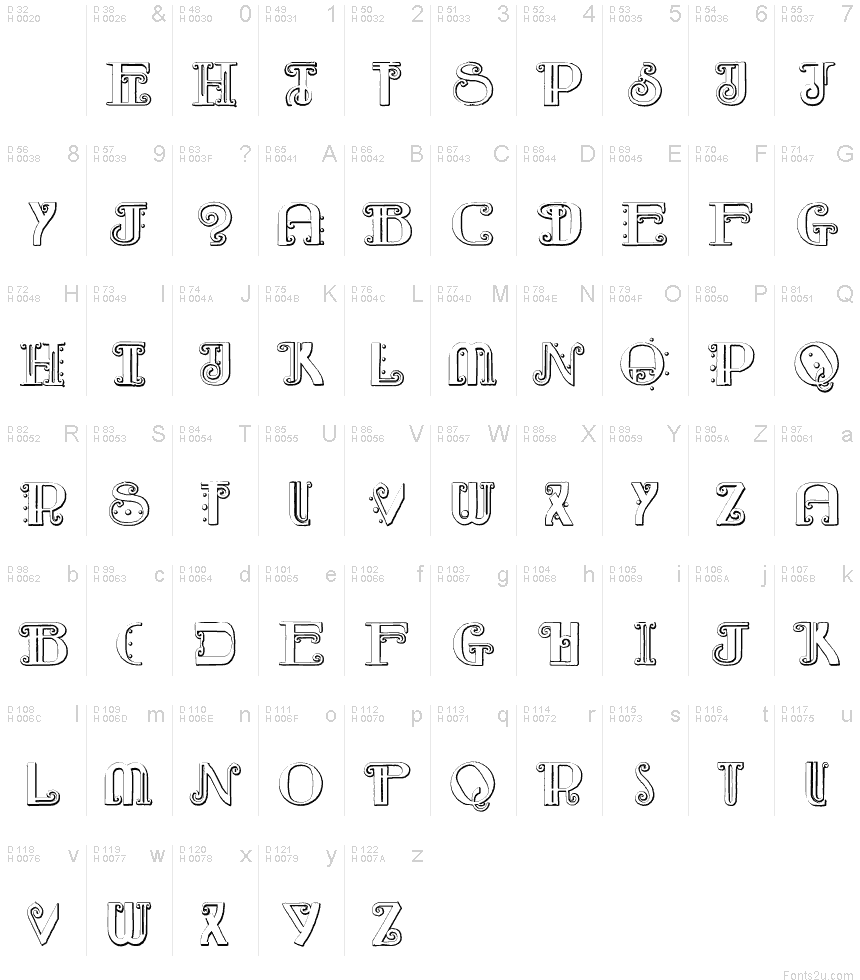
Rebimboca Beveled by Paulo W of Intellecta Design is a free Western outlined display font with ornate detailing. Tall letters combine slab serifs, curled tips, inset lines, and bead-like dots reminiscent of saloon signs.
Its Old West style suits posters, event graphics, and frontier-themed entertainment branding. It also gives beverage packaging the look of an engraved tavern label. On merchandise, the lettering can become part of an emblem, with curls and inner lines supplying the decoration.
Rebimboca Free is by Intellecta Design. It is a non-commercial version with an unpublished set that differs from the original Rebimboca.
The creator is Paulo W.